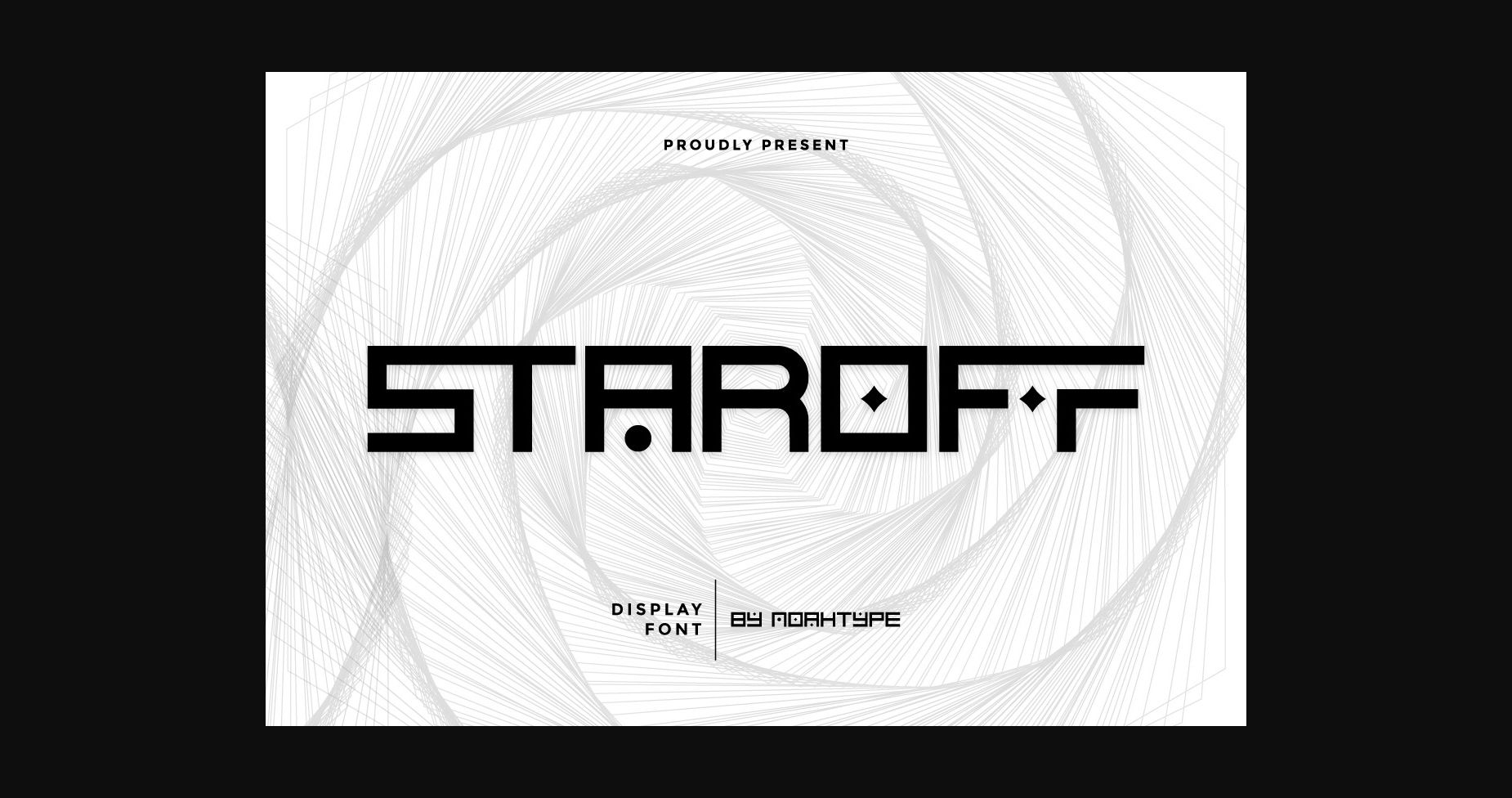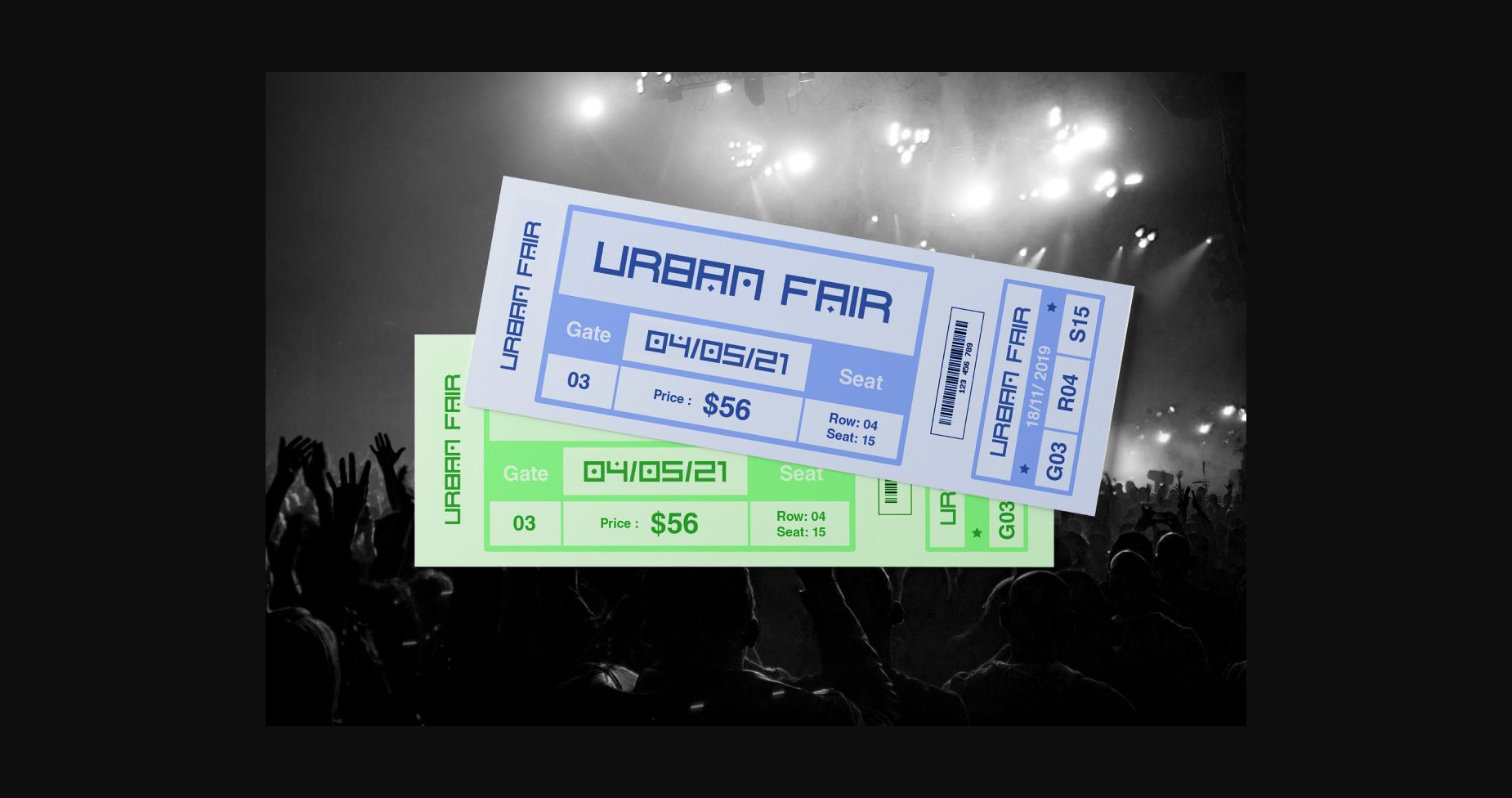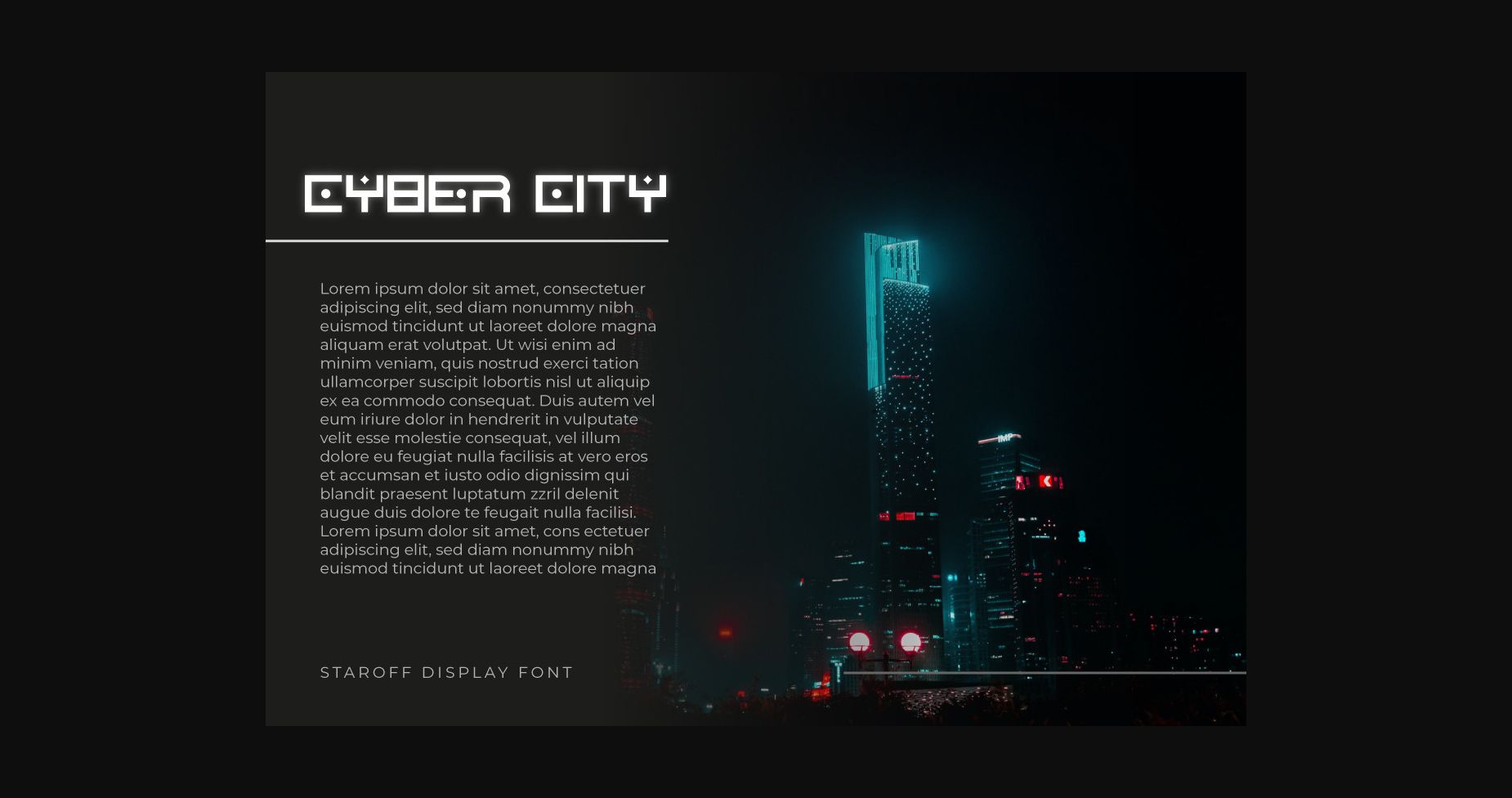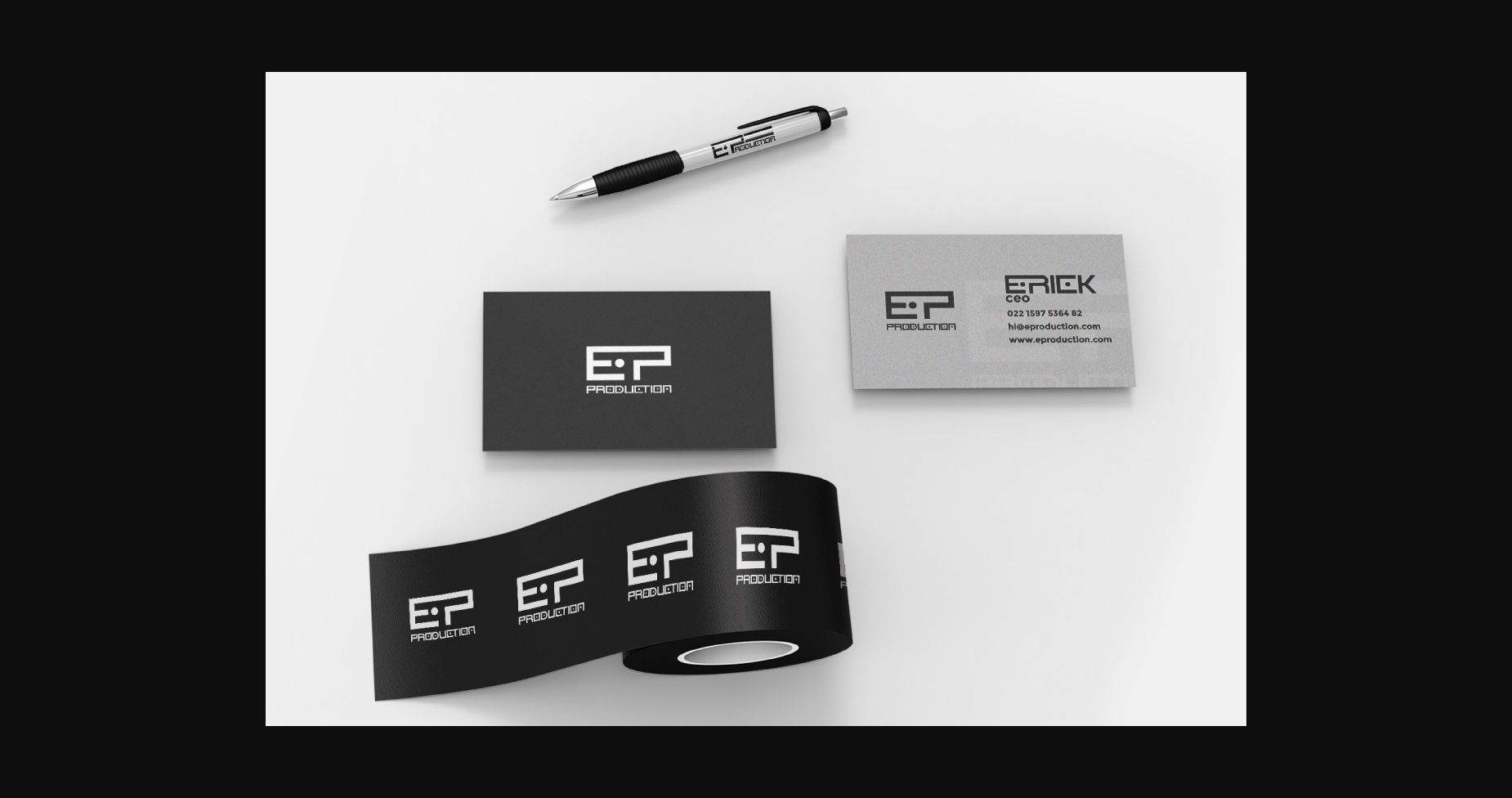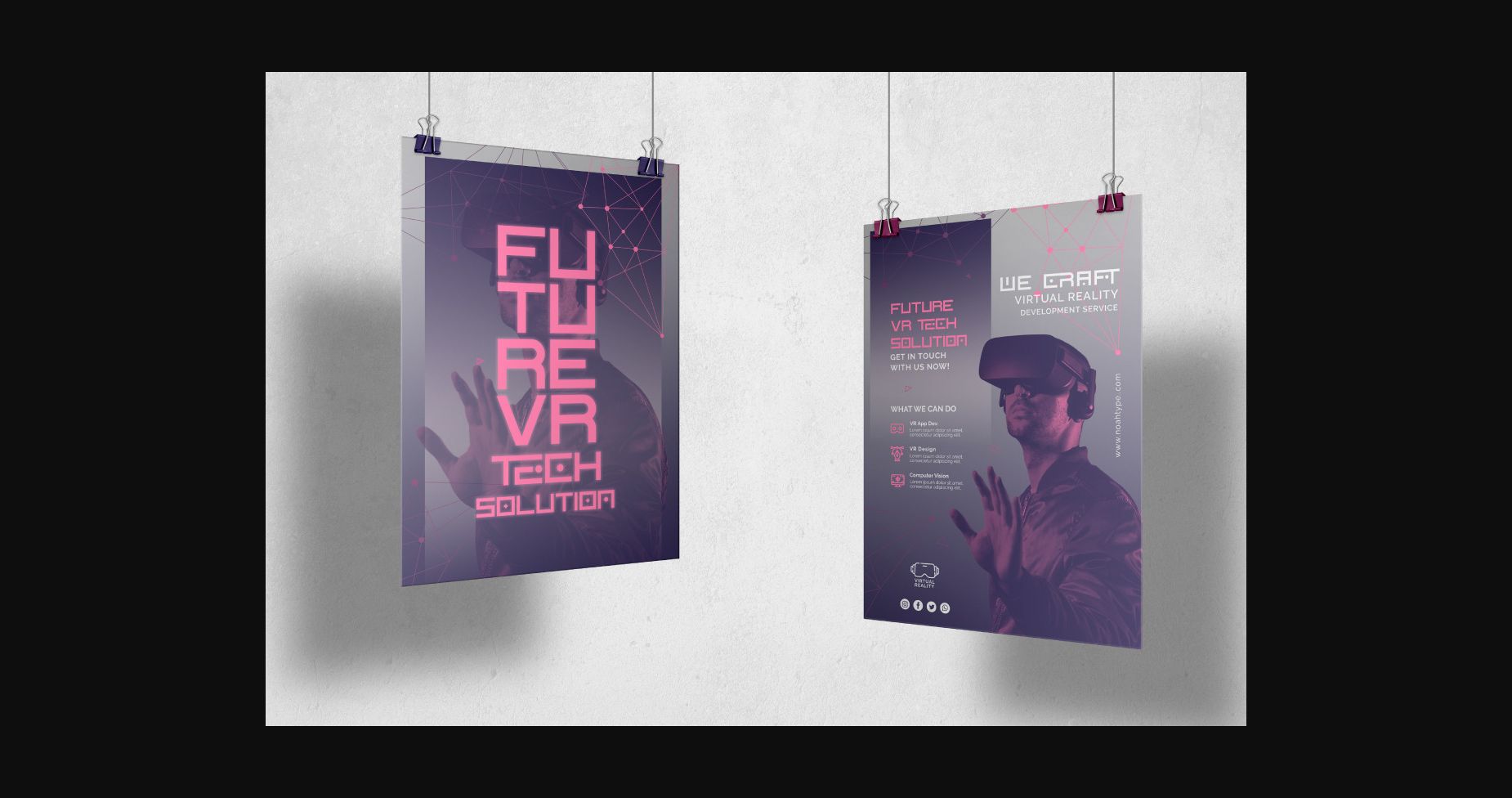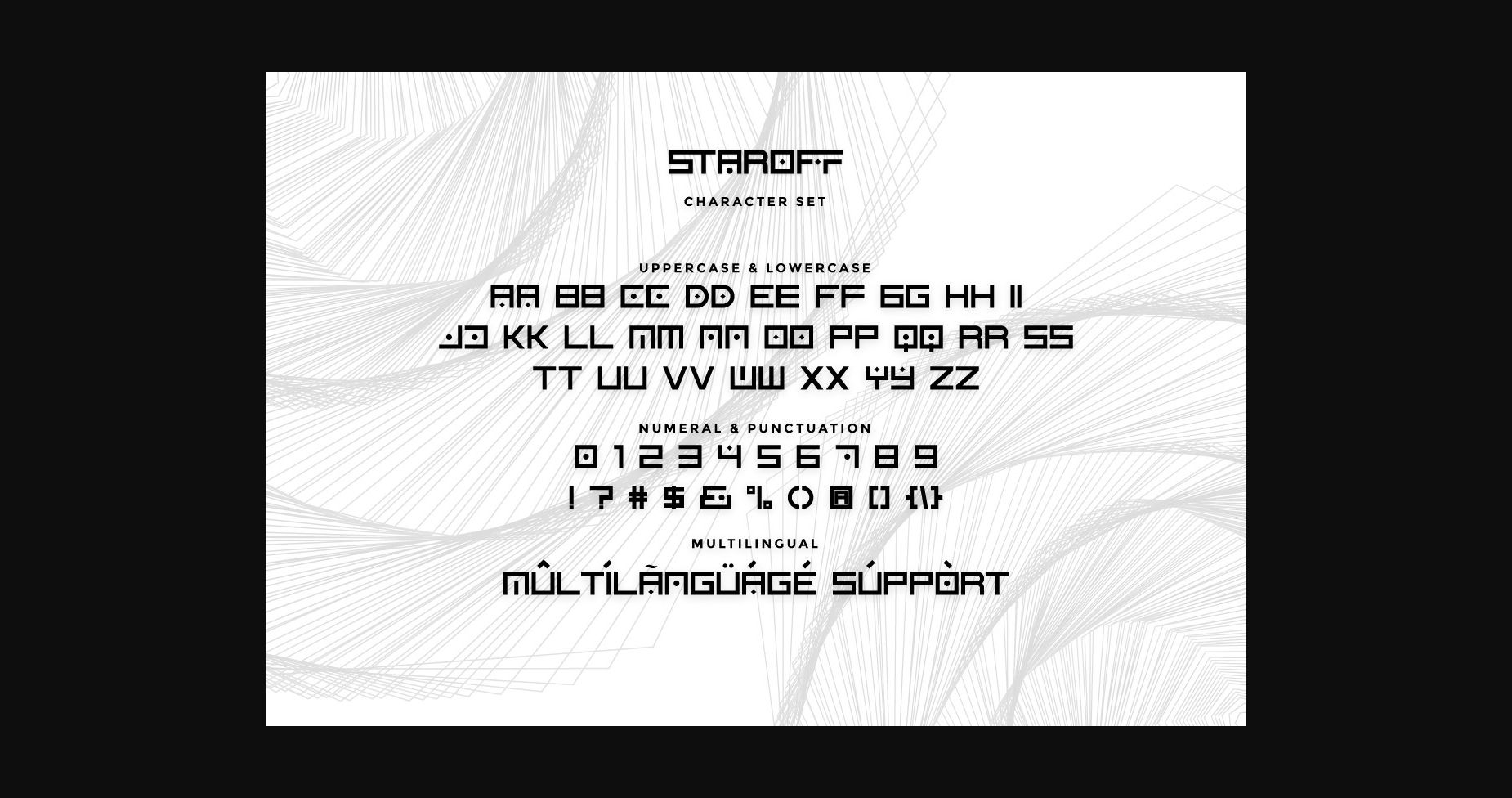
About Staroff Font
Staroff is a modern sans serif font with futuristic style characters. It has a unique style that will bring a super modern and up-to-date feel to your designs. It works great for games, technology, events, spaceship, branding, promotions, headlines, logos, posters, tittle, products, etc.